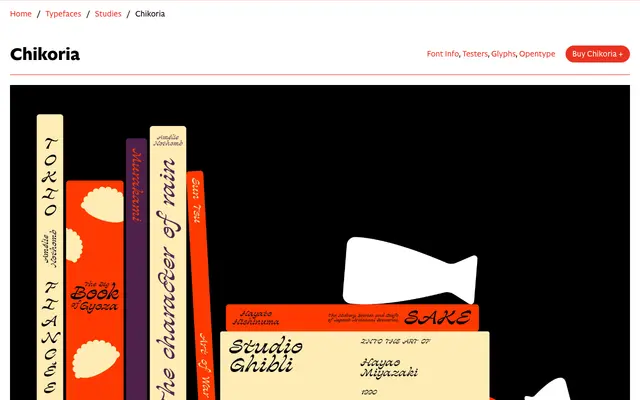
Chikoria
CAST · Riccardo Riggio · 2021
Chikoria specimen from CAST
A single-weight calligraphic display script with inverted thick/thin contrast and hooked entry strokes, designed by Riccardo Riggio for CAST Studies in 2021.
Chikoria inverts the conventional flat-nib stress, placing thick strokes at the top and bottom of letterforms rather than left and right, producing a jaunty, energetic rhythm suited to titling. Lowercase letters are unjoined save for ligatures, and deep inktraps balance dark areas throughout. The cursive uppercase carries traditional proportions, while discretionary ligatures including ct, ft, st and tt extend its calligraphic range.
A display script with inverted thick/thin contrast drawn from flat-nib and pointed-brush calligraphic traditions, explicitly designed for titling and display use rather than continuous text.